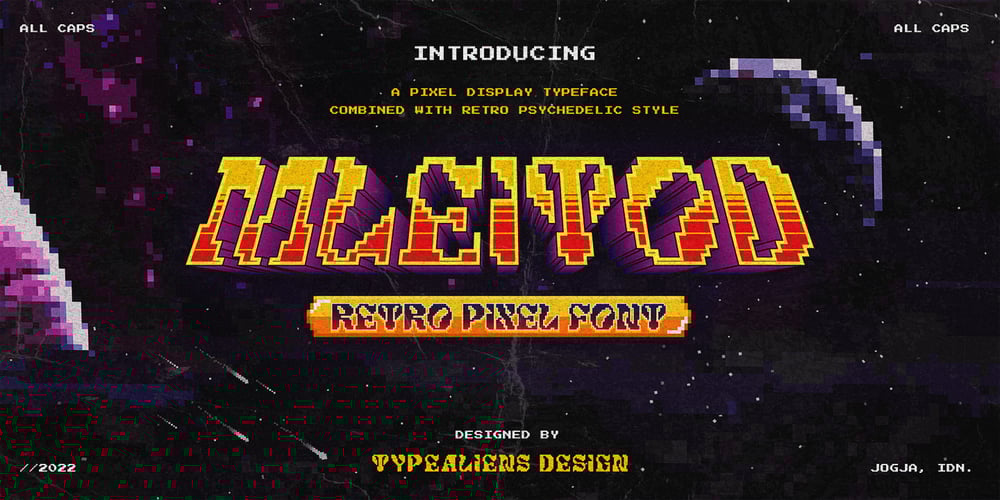
Mleitod Font Family was designed by Ilham Wahyu and published by Ilhamtaro. Mleitod contains 1 styles and family package options. MLEITOD is a display font based on bold serifs combined with a psychedelic style and given a low pixel effect like in a game. With its pixelated stroke characteristics, this font is perfect for different or unique designs such as in games or for bands and music event posters.The uniqueness of this font is psychedelic-pixel, it can be categorized as a vintage font because usually old school games use this style plus it can be used for bands because psychedelic is also found in one genre of music.To enable the OpenType Stylistic alternates, you need a program that supports OpenType features such as Adobe Illustrator CS, Adobe Indesign & CorelDraw X6-X7. Guides to access all alternates glyphs : http://adobe.ly/1m1fn4YCheers!